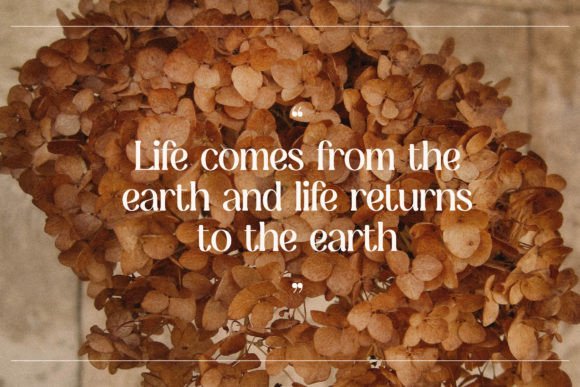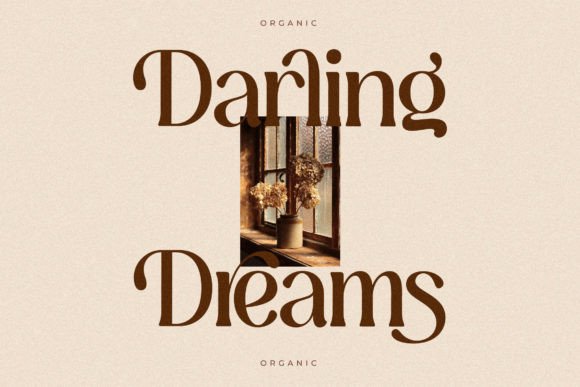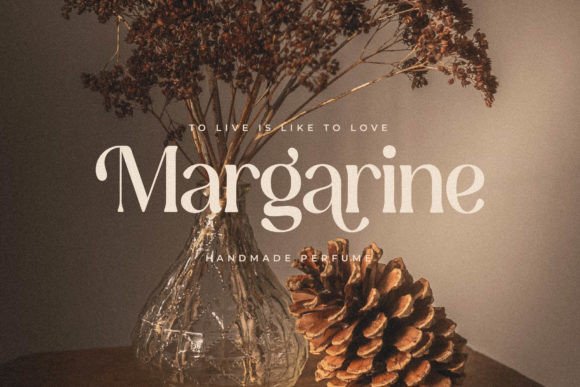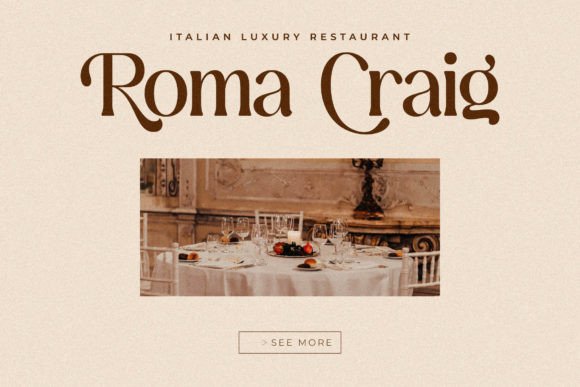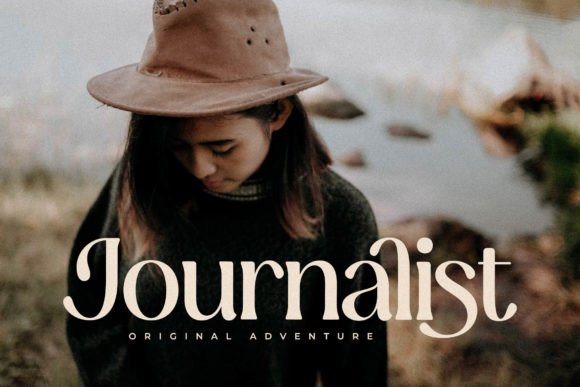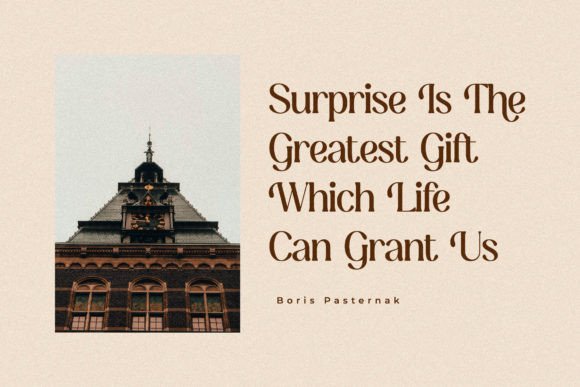
Introduction to Qakergu Font
Qakergu is a sophisticated, charming serif font with a fashionable touch.
Specially designed for luxury, elegant, feminine projects, this font is perfectly suitable for creating modern, chic designs .
Key Features of Qakergu Font
Why Choose Qakergu Font?